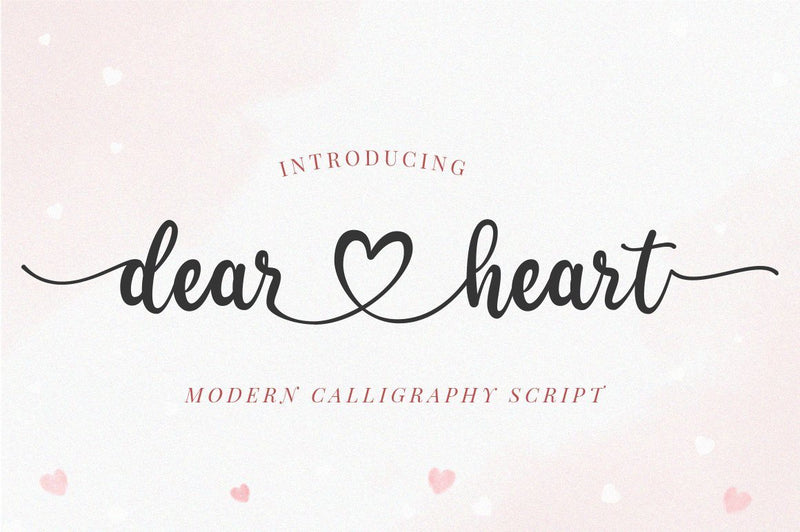
Dear Heart - Lovely Calligraphy Font
Dear Heart is a romantic handwritten font. Perfect for writing Valentine’s Day letters or invitations, this font will most certainly elevate your designs. This font is PUA encoded which means you can access all of the glyphs and swashes with ease!
It easily cooperating together For Magazine, Movies, or Book Titles. For Photography, Wedding Invitation, Restaurant Menu or T-shirt Design. For Flyers, Banner Ads, web and printing. From Food and Fashion to a Cosmetics product